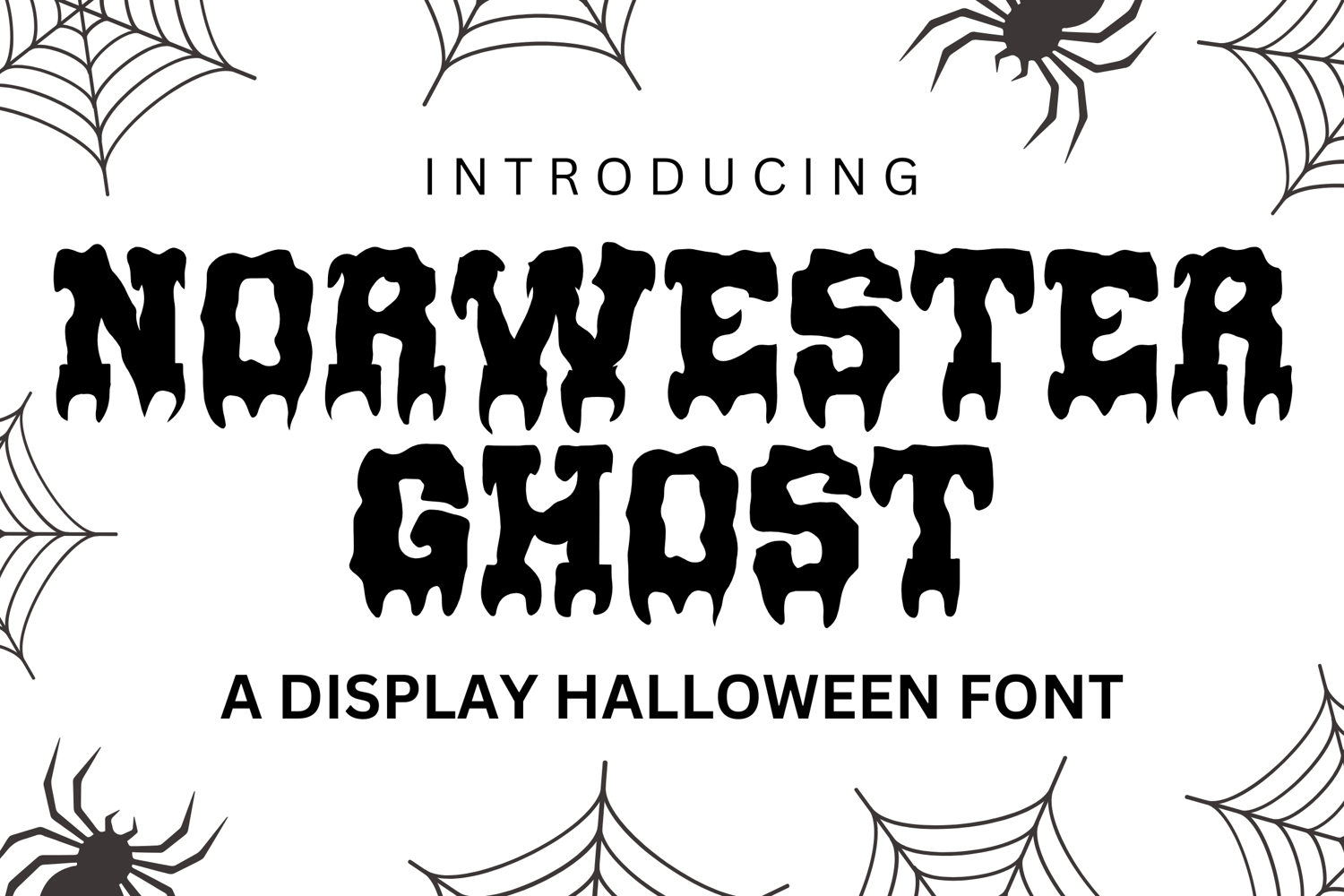
Norwester Ghost - Haunted Varsity Font
Norwester Ghost
Norwester Ghost is a spooky twist on the classic Norwester Varsity Font. With its bold, condensed letterforms and eerie “ghosted” effect, this typeface is perfect for Halloween posters, haunted house flyers, scary movie titles, horror-themed branding, and seasonal crafts.
The clean varsity style combined with a ghostly touch makes it unique — ideal for designs that need both strength and haunting profesionality.
✨ Features:
• Condensed All-Caps Typeface with a bold varsity structure
• Unique “Ghost Effect” styling for Halloween and horror themes
• Includes uppercase letters, numbers, punctuation, and multilingual support
🎯 Perfect For:
• Halloween party invitations & posters
• Haunted house flyers & spooky events
• Horror movie graphics & YouTube thumbnails
• Seasonal apparel, stickers & merchandise
• Ghostly quotes, signage, and crafts